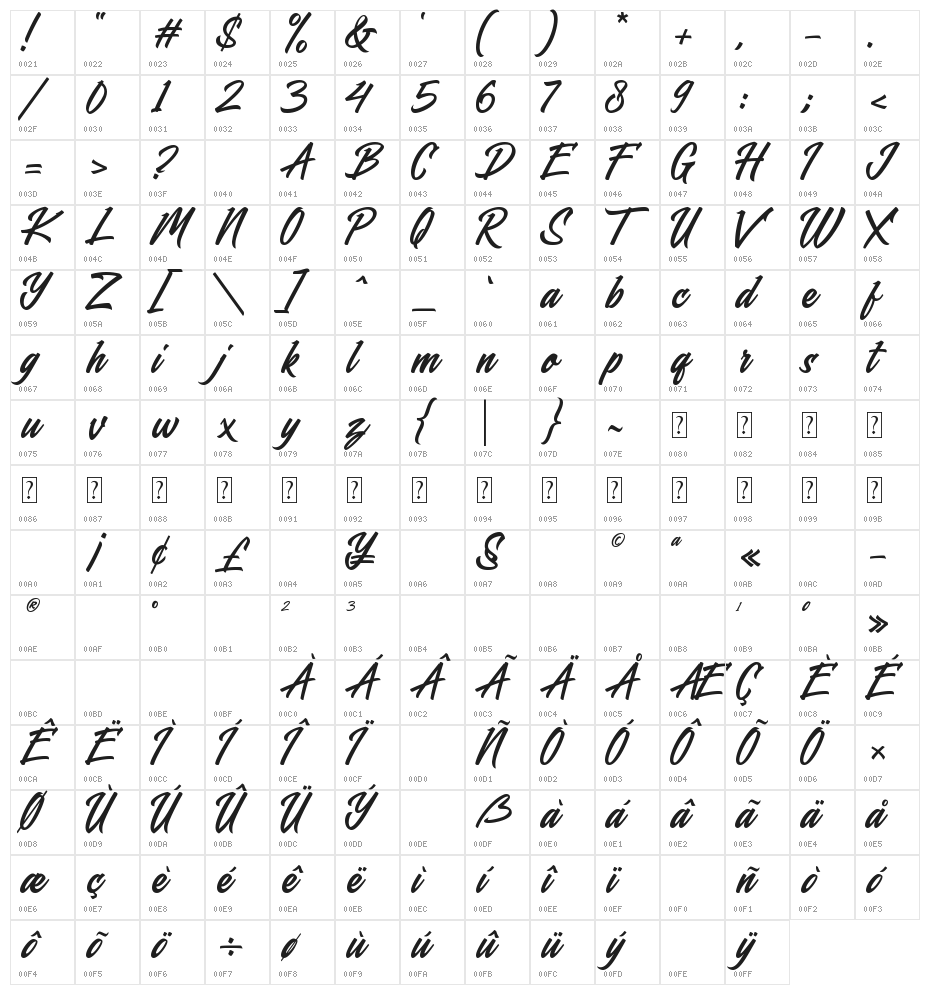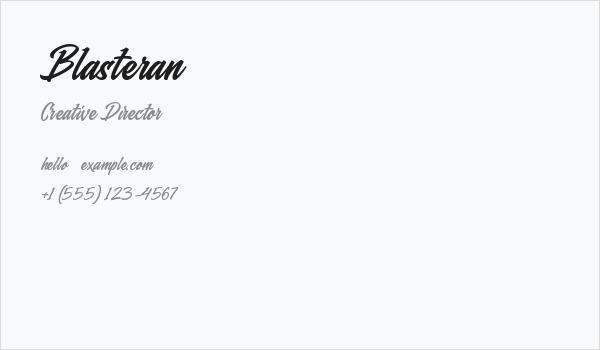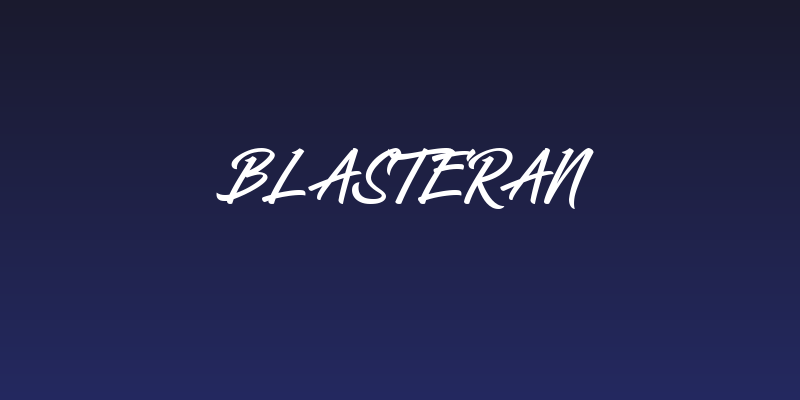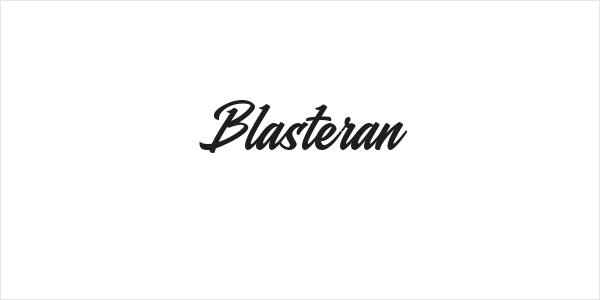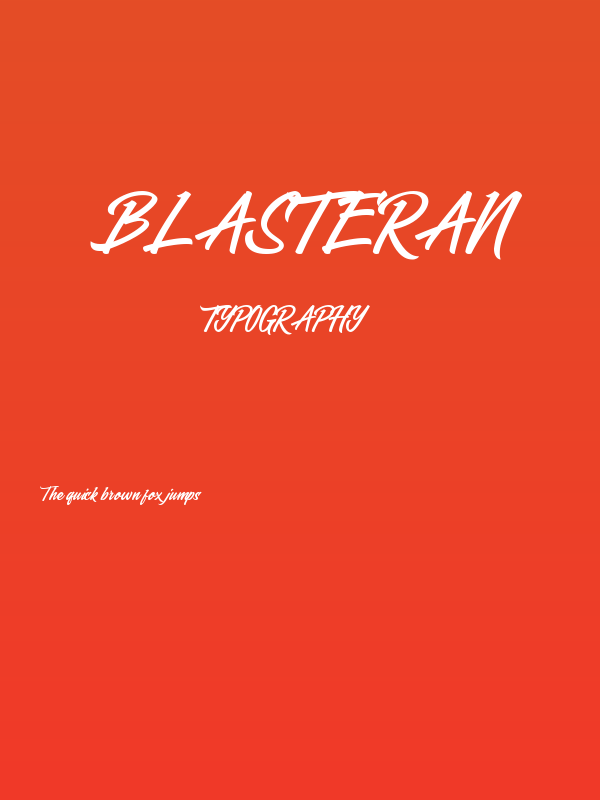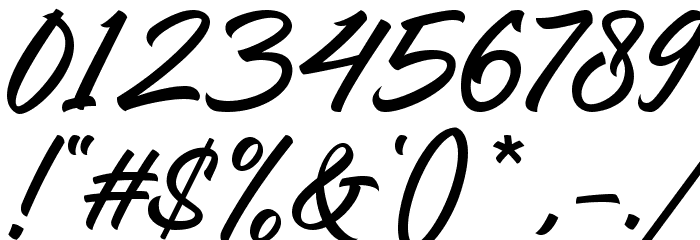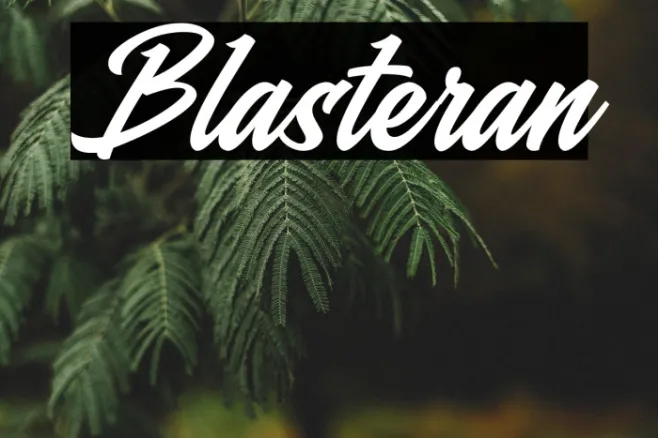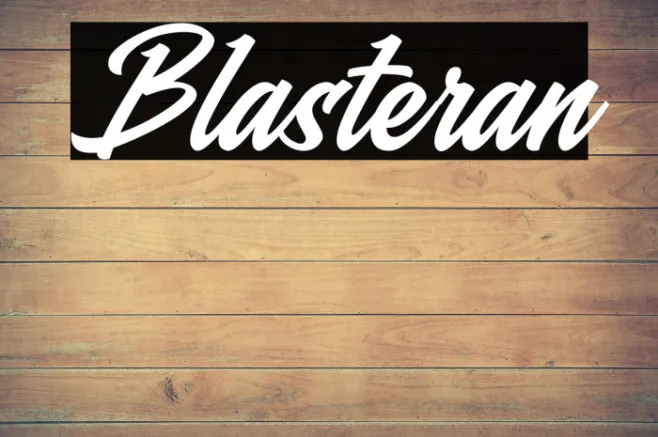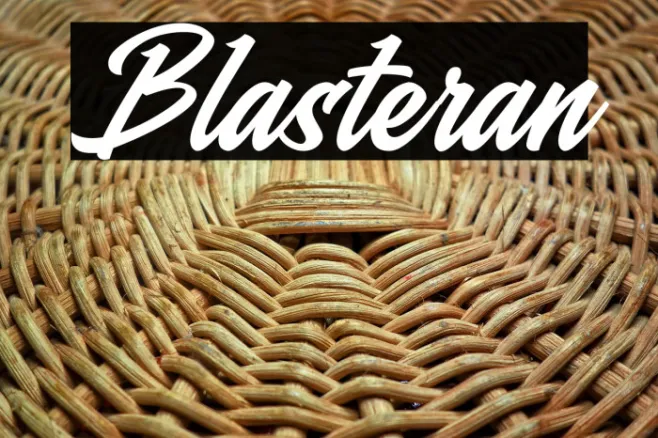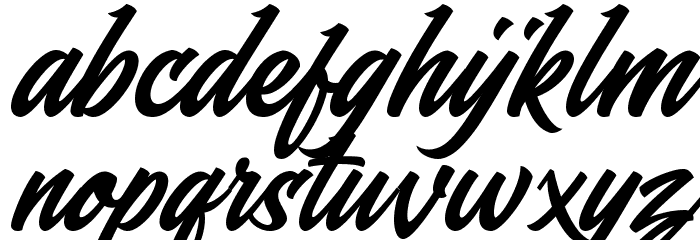
Blasteran Font
Blasteran Description
This font features a bold, energetic script style with a strong presence. The letters are connected, creating a fluid and dynamic appearance. The strokes are thick and expressive, giving the font a sense of movement and vitality. It has a modern flair with a touch of elegance, making it suitable for eye-catching designs. The uppercase and lowercase letters maintain a consistent style, while the numerals and special characters complement the overall aesthetic. This font is ideal for projects that require a bold and stylish script.
| Proposed Projects | Ideal for branding, logos, posters, and invitations that require a bold and stylish script. |